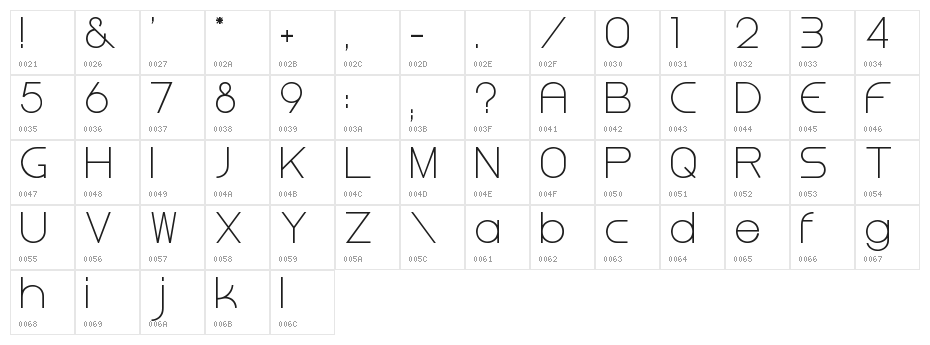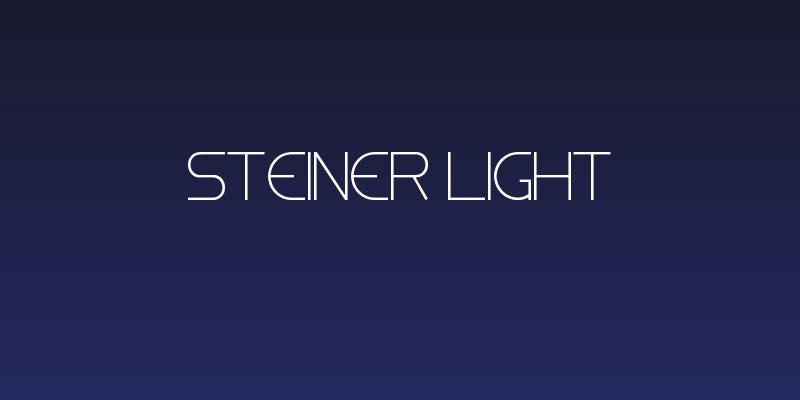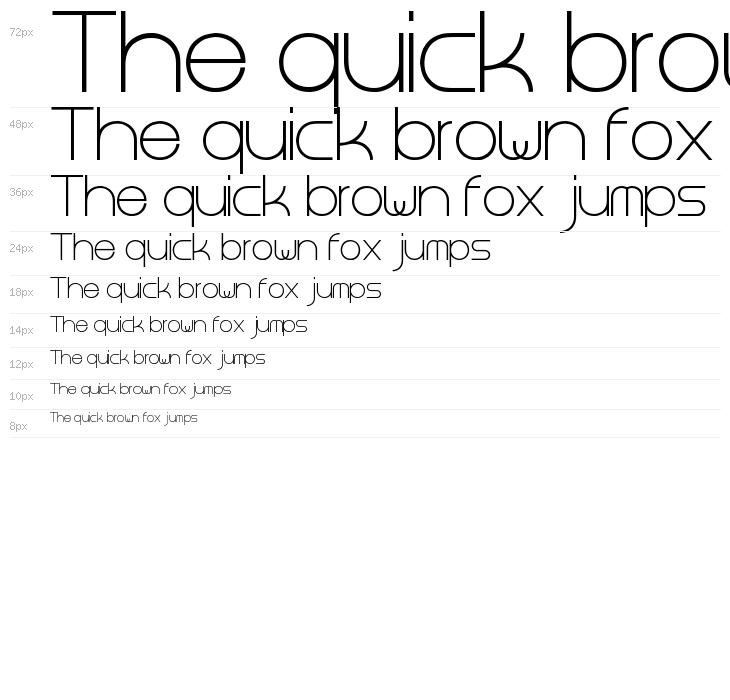
Steiner Light Font
Steiner Light Description
This font features a clean and geometric design, characterized by its thin, uniform strokes and rounded edges. The uppercase letters exhibit a modern, minimalist aesthetic with consistent line weights, while the lowercase letters maintain a similar style with a slightly more playful curvature. The numerals are clear and legible, adhering to the same geometric principles. Special characters are designed to complement the overall look, ensuring a cohesive appearance across all glyphs. The font's simplicity and elegance make it suitable for a variety of applications, from digital interfaces to print media.
| Proposed Projects | Ideal for branding, digital interfaces, modern print layouts, and minimalist design projects. |